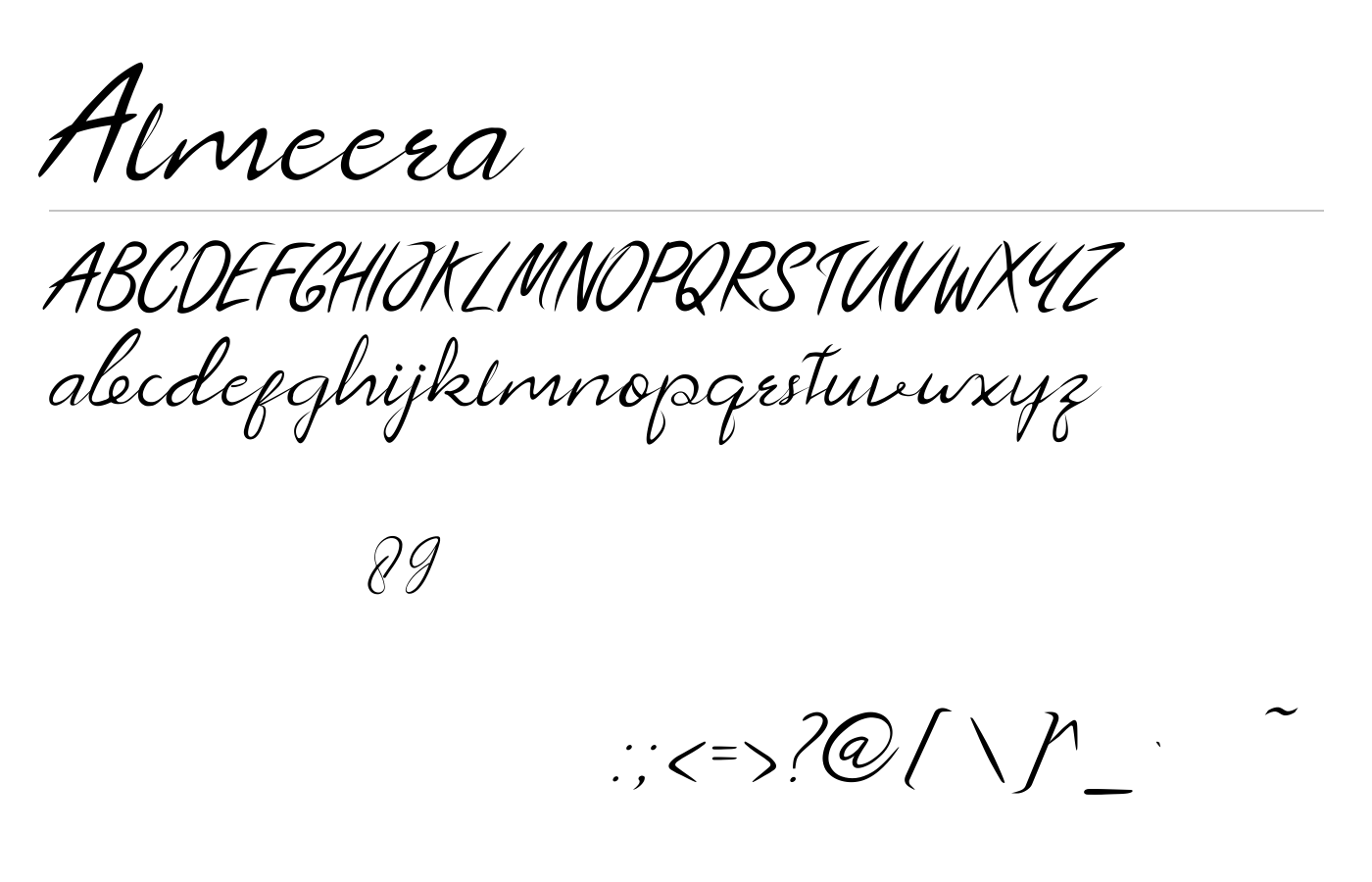
Almeera is a stylish script font featuring elegant, flowing letterforms with a handwritten feel. Its slender strokes and slightly slanted characters give it a graceful, modern touch, making it ideal for invitations, branding, and creative projects that seek a personal yet refined look. This font works best in display use where its unique character and fluidity can shine.